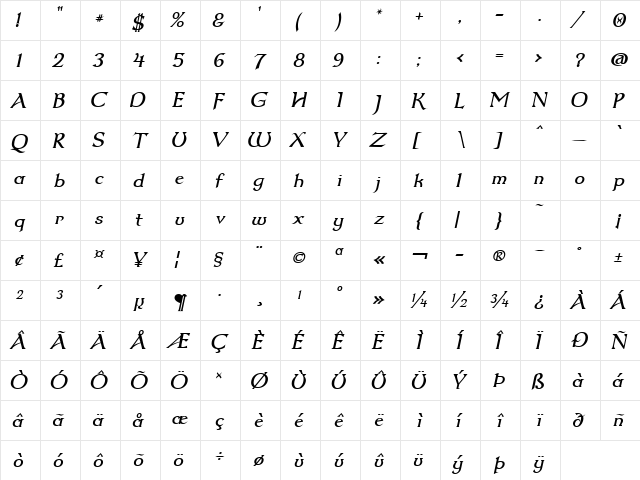
Dumbledor 2 Italic Regular
Design Context for Dumbledor 2 Italic Typeface
Dumbledor 2 Italic offers clean, dependable letterforms without strong stylistic allegiance, making it a practical choice for designers who need flexibility. Its italic angle brings a sense of urgency and motion to the letterforms.
Pro Tip: Use Dumbledor 2 Italic for emphasis, pull quotes, and subheadings where its slanted energy can add rhythm to the layout.